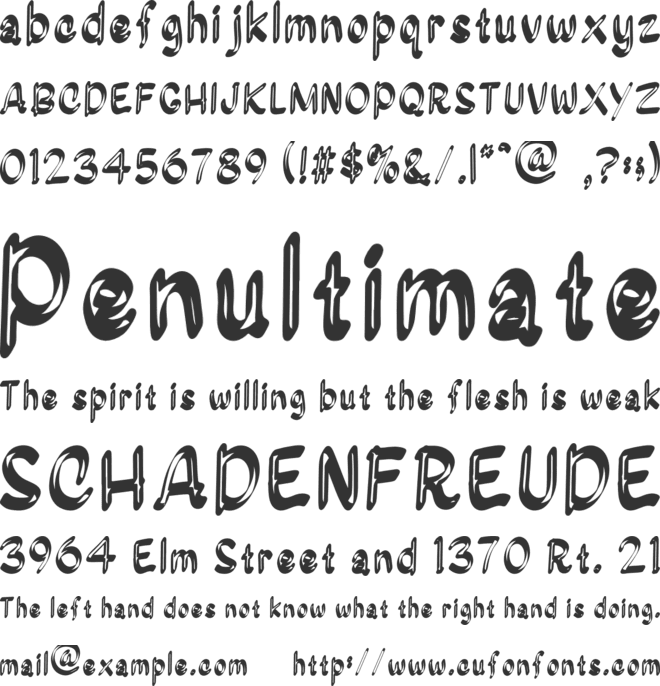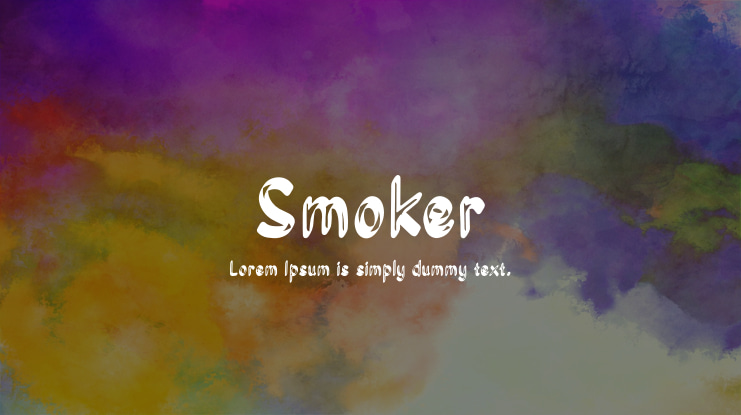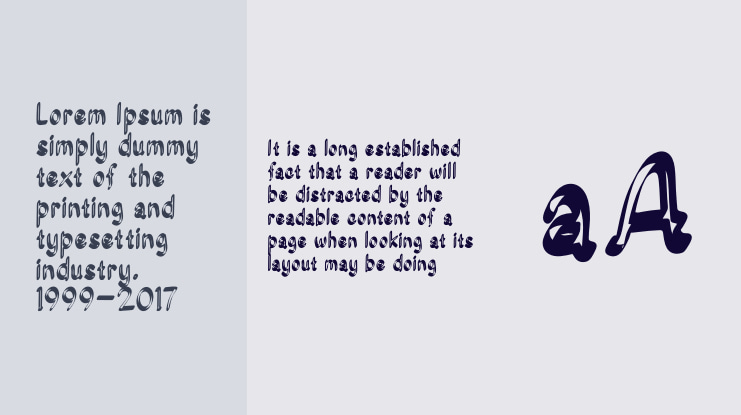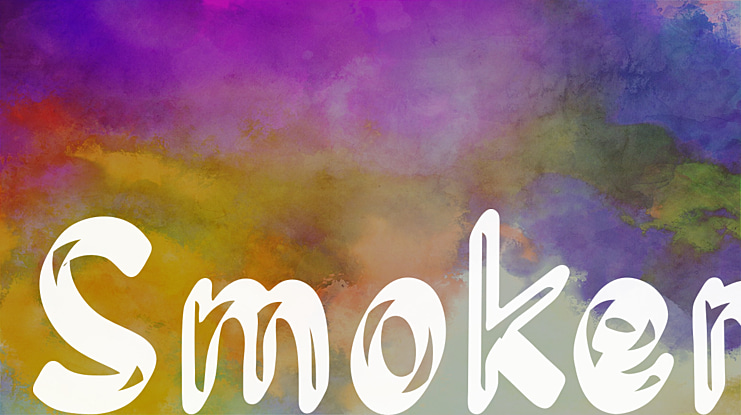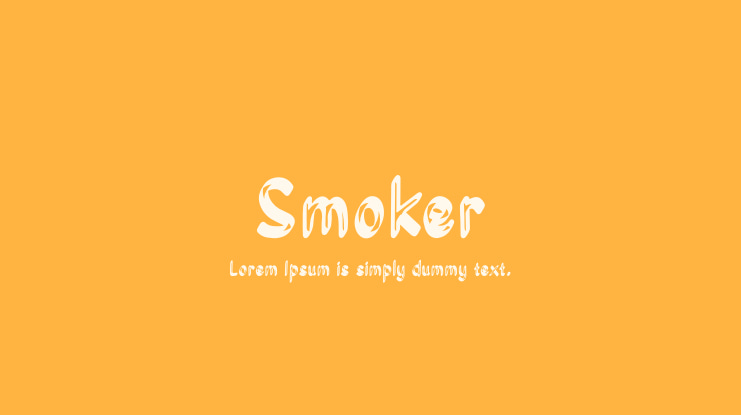
Smoker Font
Muhammad Nashrul Aziz
Smoker is a cool, friendly and relaxed display font. This original look will appeal to a wide range of crafty ideas, from letterheads and titles, to stationery.